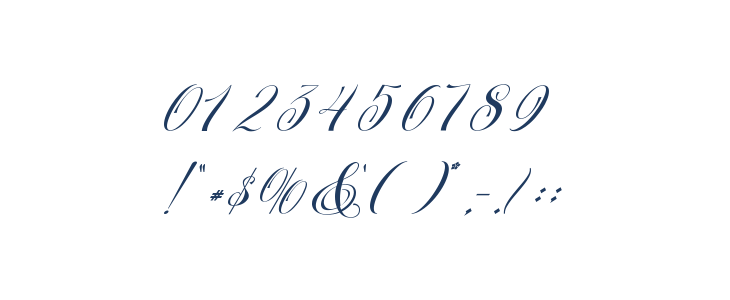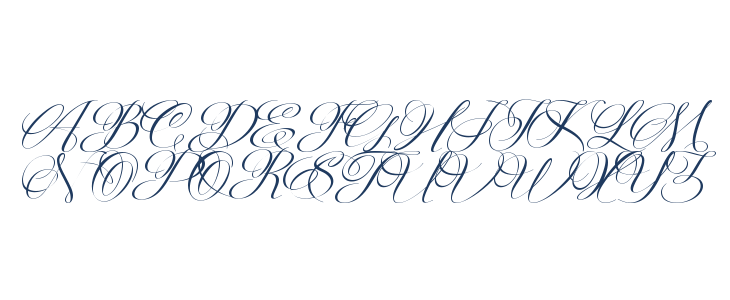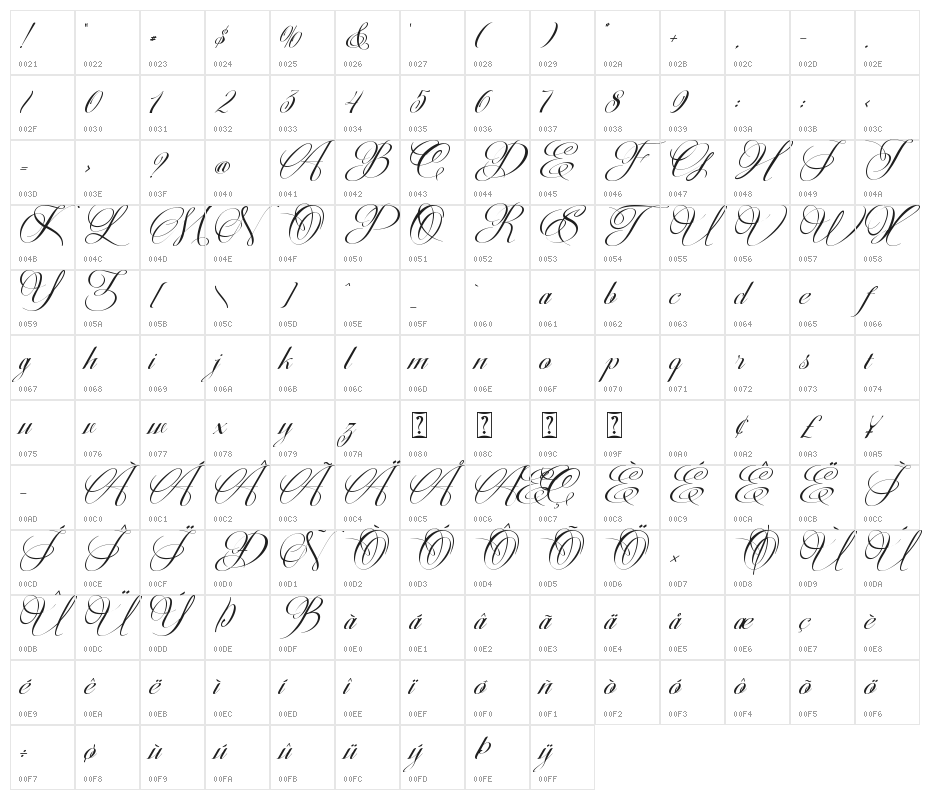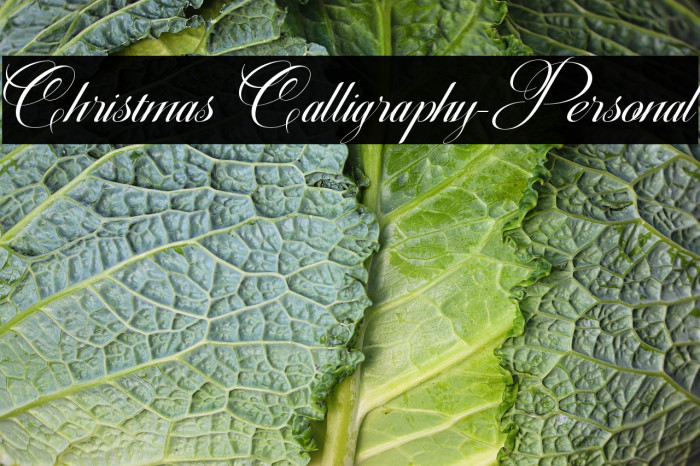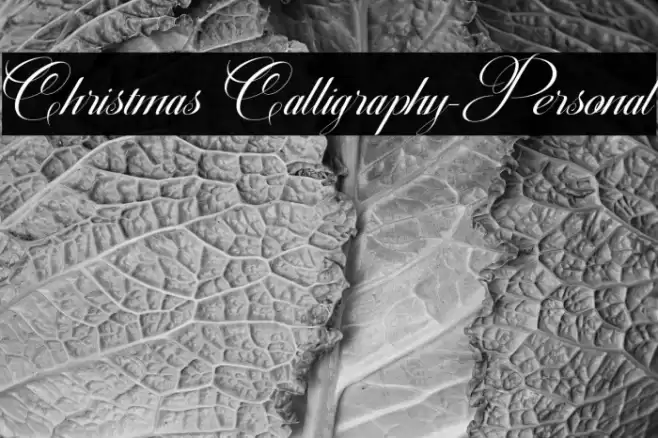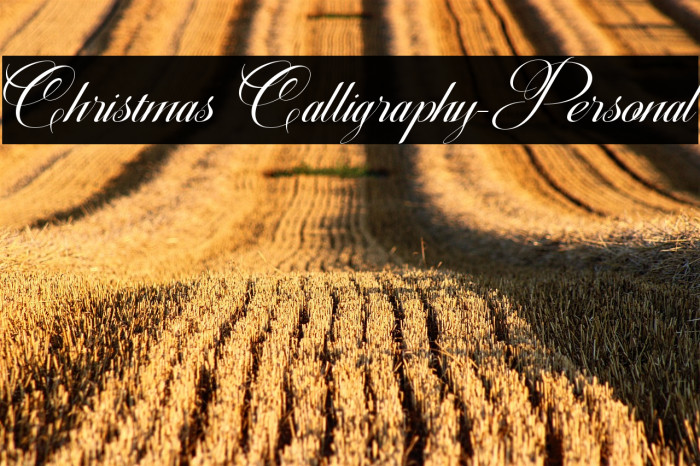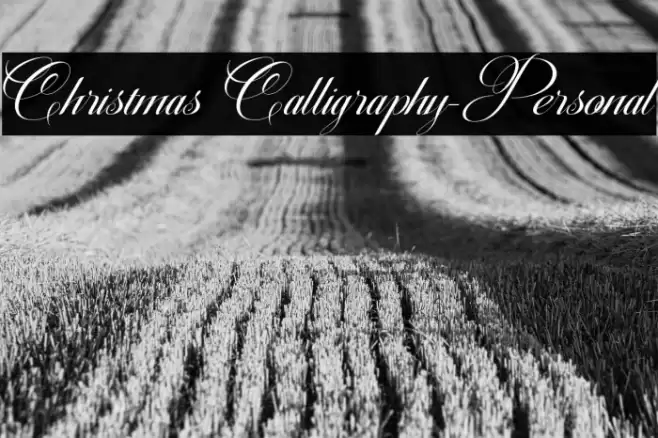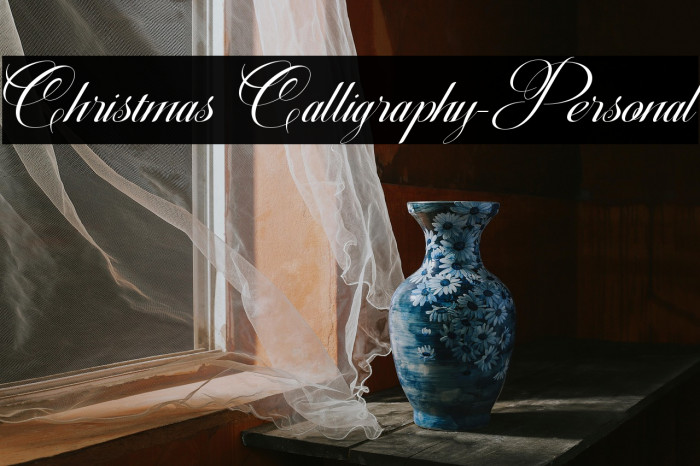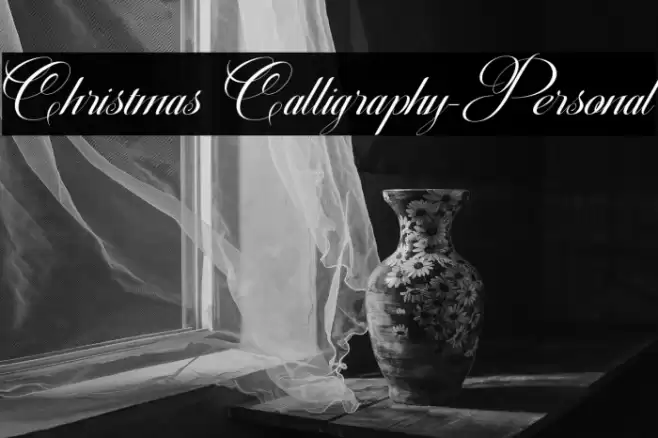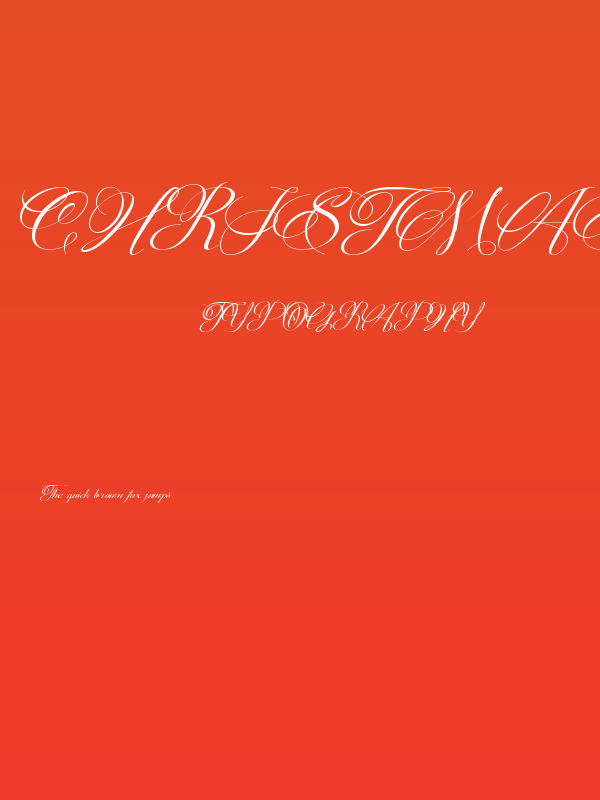
Christmas Calligraphy-Personal Font
Christmas Calligraphy-Personal Description
Elegant, flowing script font with high contrast between thick and thin strokes, ornate swashes, and a handwritten calligraphic style. Uppercase letters are highly decorative, while lowercase letters are more legible and slightly slanted.
| Overall Style | Decorative, Elegant, Calligraphic |
| Use Case | Headlines, Invitations, Logos, Decorative text |
| Proposed Projects | Holiday cards, wedding invitations, luxury branding, event posters, decorative headlines. |